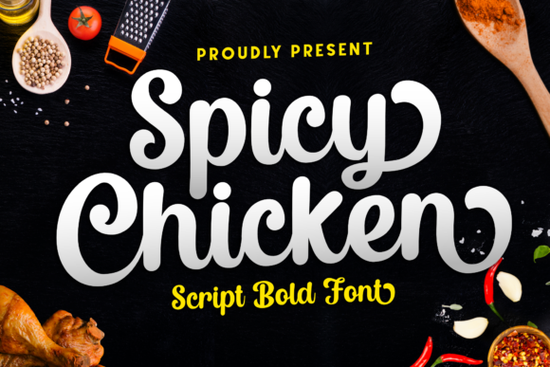
If you’ve been searching for a script font that feels both playful and polished, Spicy Chicken might be exactly what your next project needs. It’s not trying to be overly fancy or hard to read instead, it strikes a nice balance between charm and elegance, making it easy to drop into invitations, logos, labels, or even social media graphics without overthinking it. Whether you’re designing wedding stationery, branding a small food business, or personalizing merch for print-on-demand, this font adapts well without losing its personality.
What makes Spicy Chicken stand out is how naturally it flows. The letterforms nod to classic calligraphy but don’t get tangled in excessive swirls or hard-to-decipher connections. That’s why it works just as well on a boutique coffee shop logo as it does on a birthday card. If you’ve ever used fonts like Samantha Calligraphy or Snowlet, you’ll notice Spicy Chicken sits comfortably in that same sweet spot readable up close, stylish from afar.
What kinds of projects does this font actually work for?
Here’s where real users have had success:
- Wedding invites and save-the-dates the soft curves feel romantic without being cliché.
- Small business branding especially bakeries, cafes, or handmade goods shops where warmth matters.
- Product packaging and labels think spice jars, tea blends, or artisanal soaps.
- Social media quote graphics pairs beautifully with clean sans-serifs for contrast.
- Personalized gifts mugs, tote bags, or framed prints with names or short messages.
One designer we spoke to used it for a hot sauce label line hence the name “Spicy Chicken” actually made perfect sense in context. Another used it alongside Locked Whisper for layered text effects on greeting cards. It’s flexible enough that you don’t need to force it into a niche.
How does it compare to other script fonts on Creative Fabrica?
If you’ve browsed script fonts before, you know some lean too formal, others too casual. Spicy Chicken avoids both extremes. For example:
- Sparkle has more bounce and whimsy great for kids’ parties or playful brands.
- Sweetylike feels softer, almost handwritten ideal for journals or intimate notes.
- Spicy Chicken? Think of it as the middle ground elegant enough for upscale use, friendly enough for everyday projects.
You can see how each serves a slightly different mood. None are “better” just better suited depending on what you’re making. That’s why having a few go-to scripts in your toolkit helps. You’re not stuck reshaping one font to fit every job.
Any tips for pairing it with other typefaces?
Absolutely. Since Spicy Chicken has such fluid strokes, pairing it with something clean and minimal keeps things balanced. Try:
- A thin sans-serif like Montserrat Light or Raleway for headers and body text.
- A bold geometric font if you want high contrast the script becomes the accent, not the whole show.
- Even a simple typewriter-style monospace can create a cool modern-vintage combo.
One trick: avoid pairing it with another script unless you’re going for intentional chaos (and sometimes that works!). Too many flowing fonts together can muddy readability. If you’re unsure, test your pairings at different sizes what looks good large might fall apart in small print.
Also worth noting: it supports basic Latin characters and common punctuation, but doesn’t include extended language sets or tons of alternates. If you need heavy customization or multilingual support, you might layer it with another font or keep it for display use only.
Start simple. Use it for one headline or logo first. See how it feels. You don’t need to overhaul your entire brand sometimes the right font quietly makes everything else look more intentional.